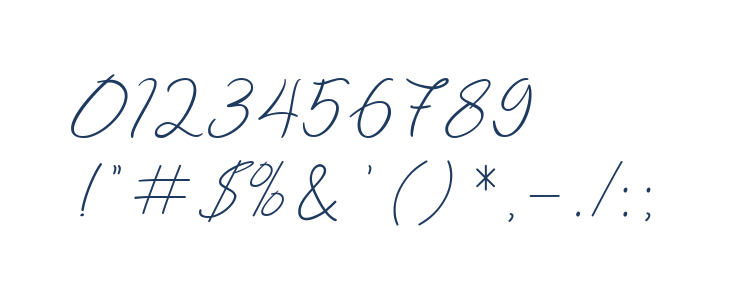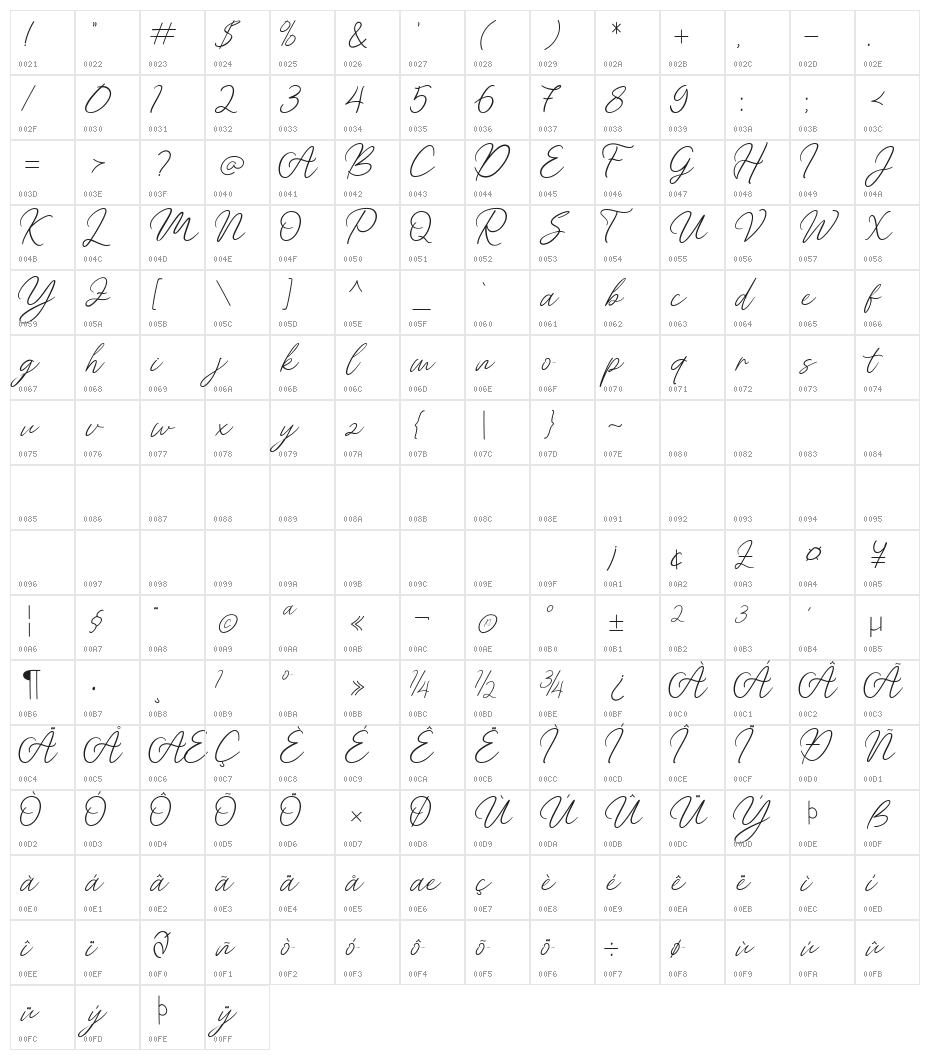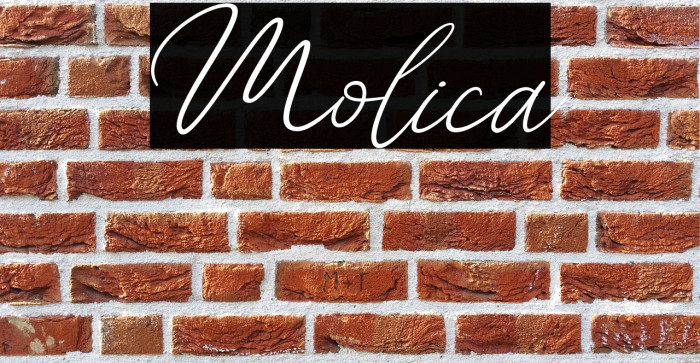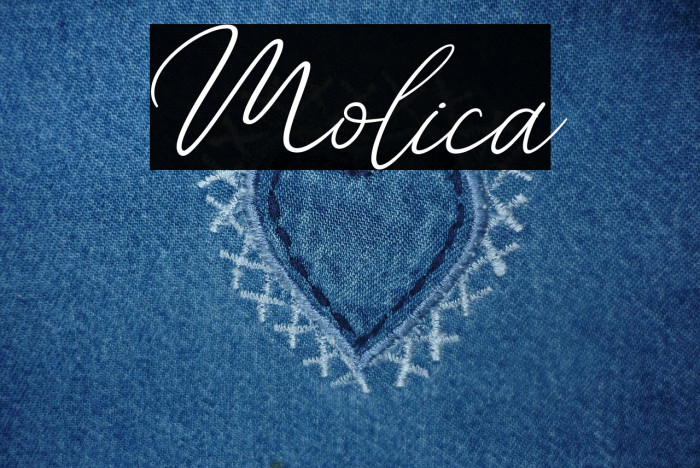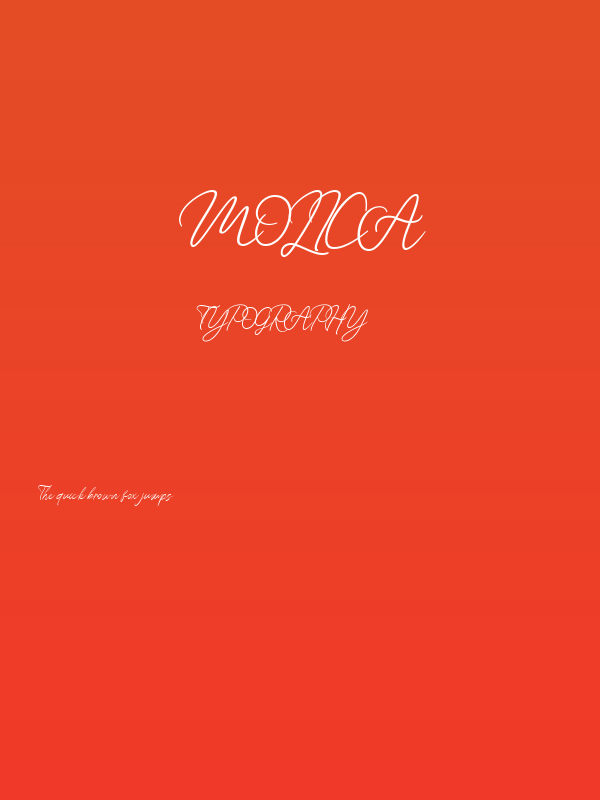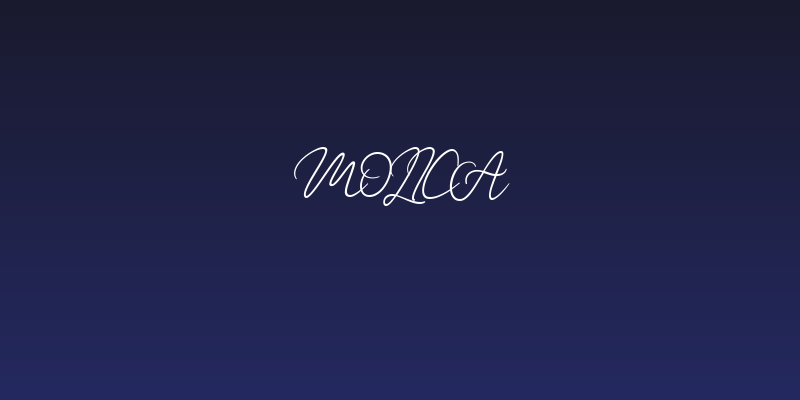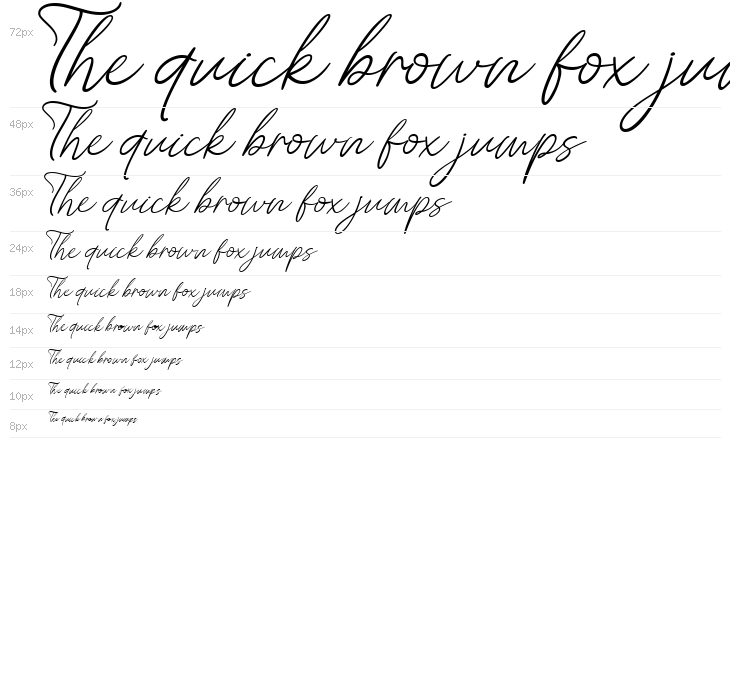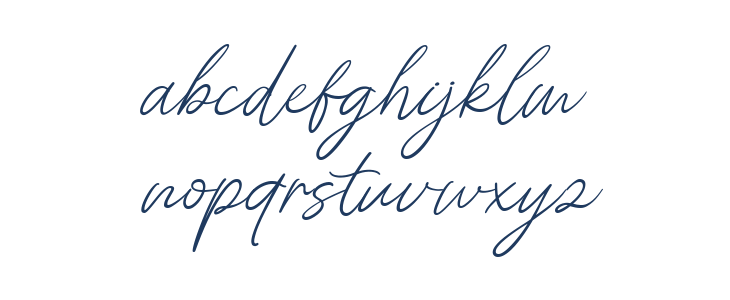
Molica Font
Molica Description
This elegant script font features fluid, cursive strokes that mimic natural handwriting. The letters are connected, creating a seamless flow that enhances its sophisticated appearance. The uppercase letters are slightly larger and more ornate, while the lowercase letters maintain a consistent and graceful style. The numerals and special characters are designed to complement the overall aesthetic, with smooth curves and balanced proportions. This font exudes a sense of elegance and refinement, making it suitable for formal and decorative purposes.
| Overall Style | Elegant, Decorative |
| Proposed Projects | Ideal for wedding invitations, greeting cards, branding, and elegant logos. |